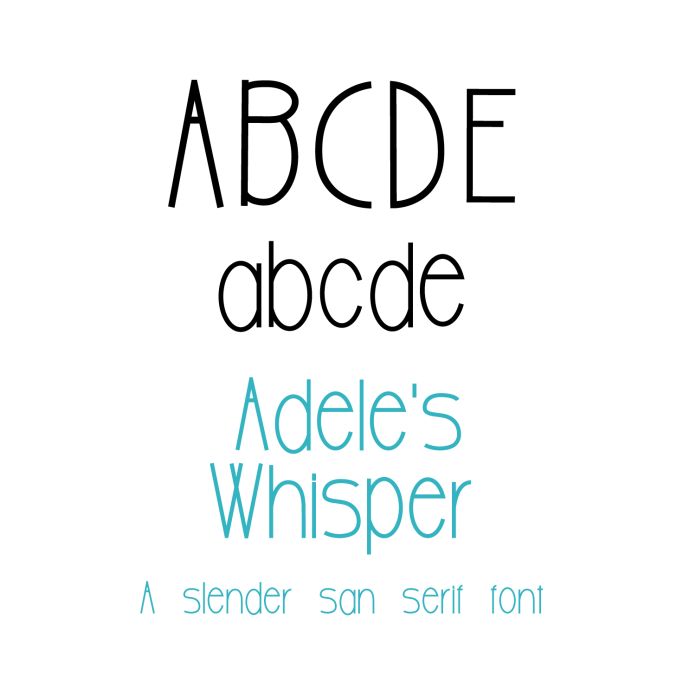
"Adele's Whisper" is a sleek sans-serif font perfect for adding a clean simple yet stylish touch to your projects. Tall lean with a hint of playfulness this font is ideal for creating designs for birthdays, celebrations, and special occasions. "Adele's Whisper" is perfect for both a variety of projects, making it a must-have for any of your designs!